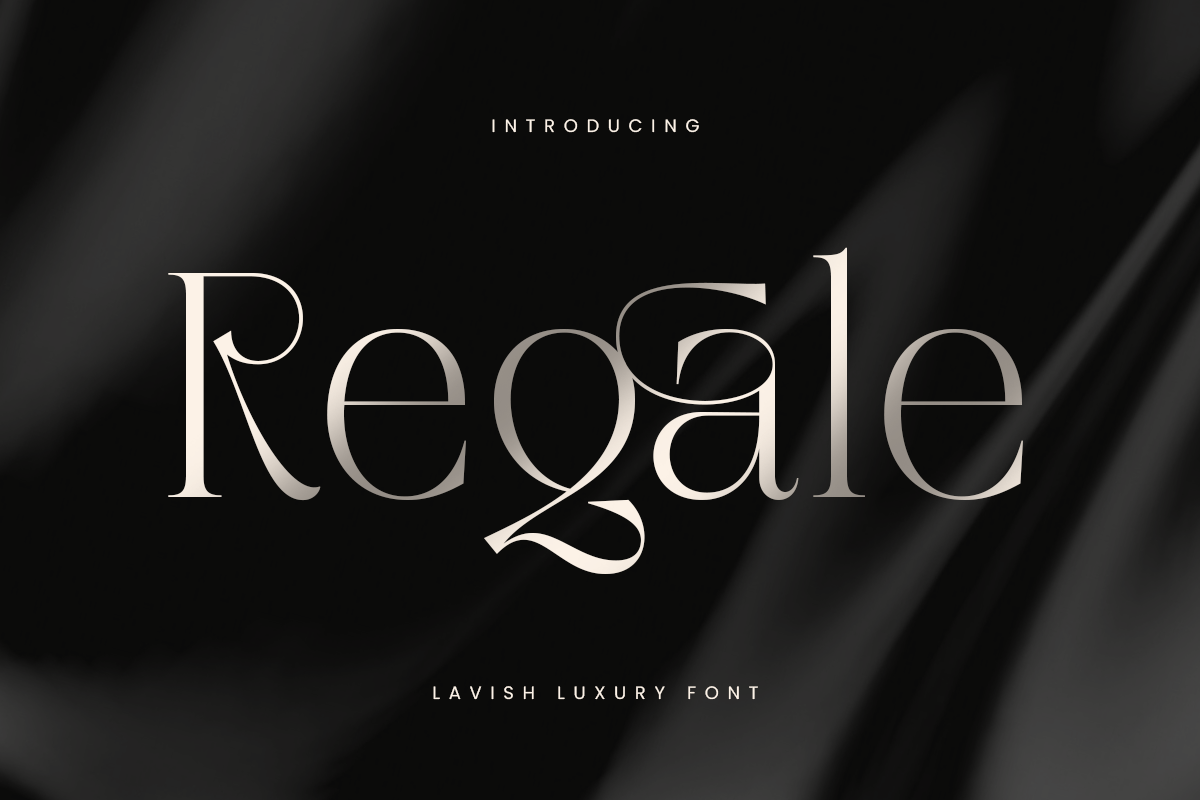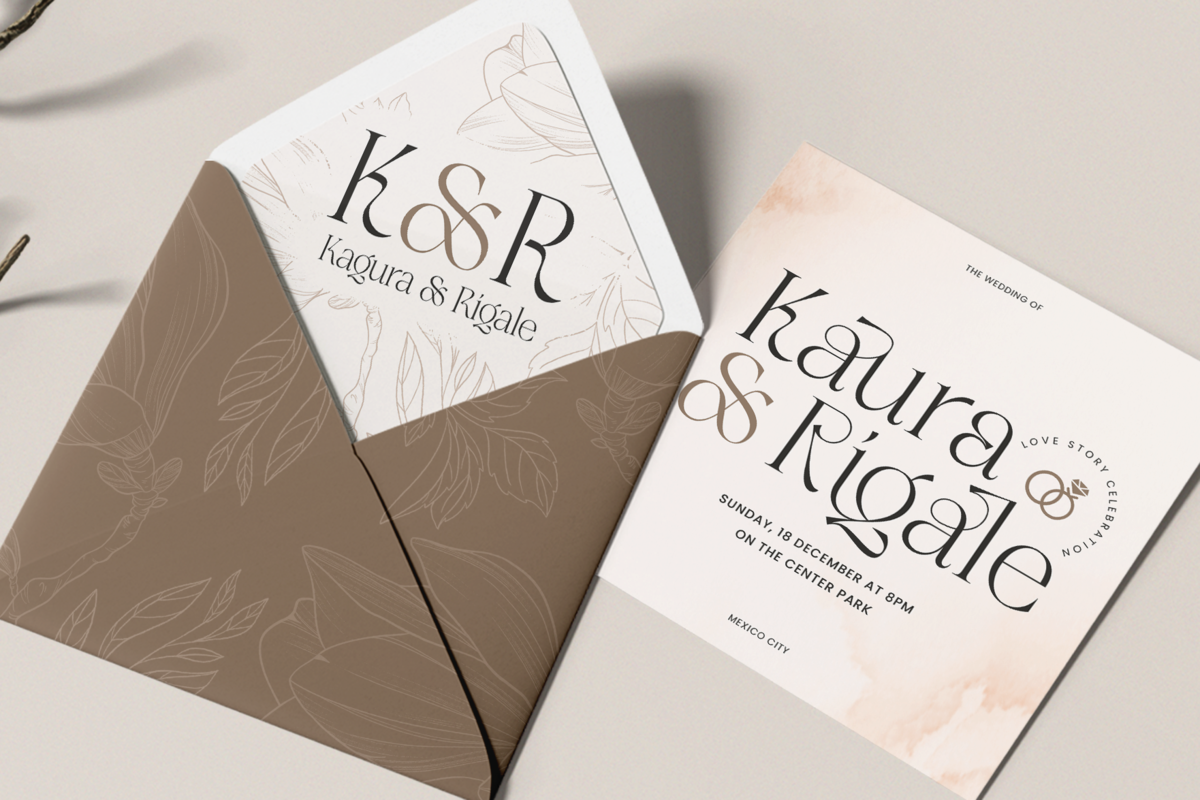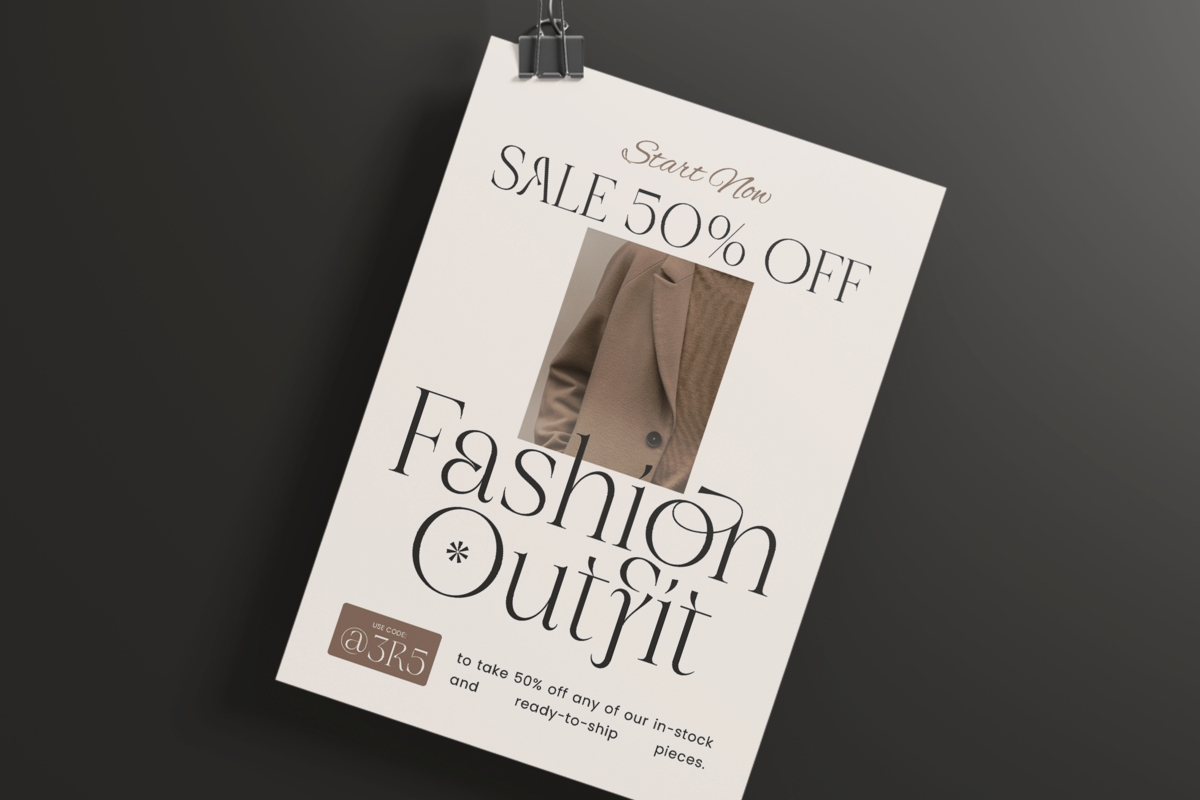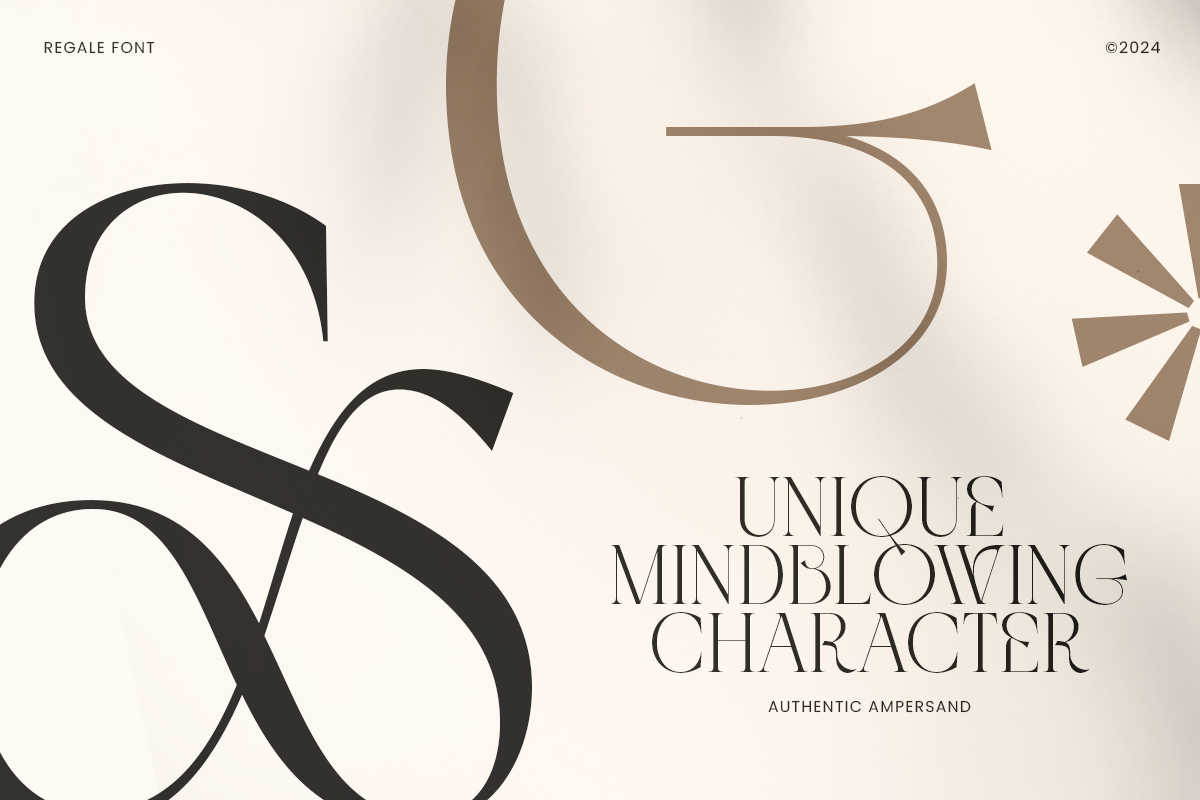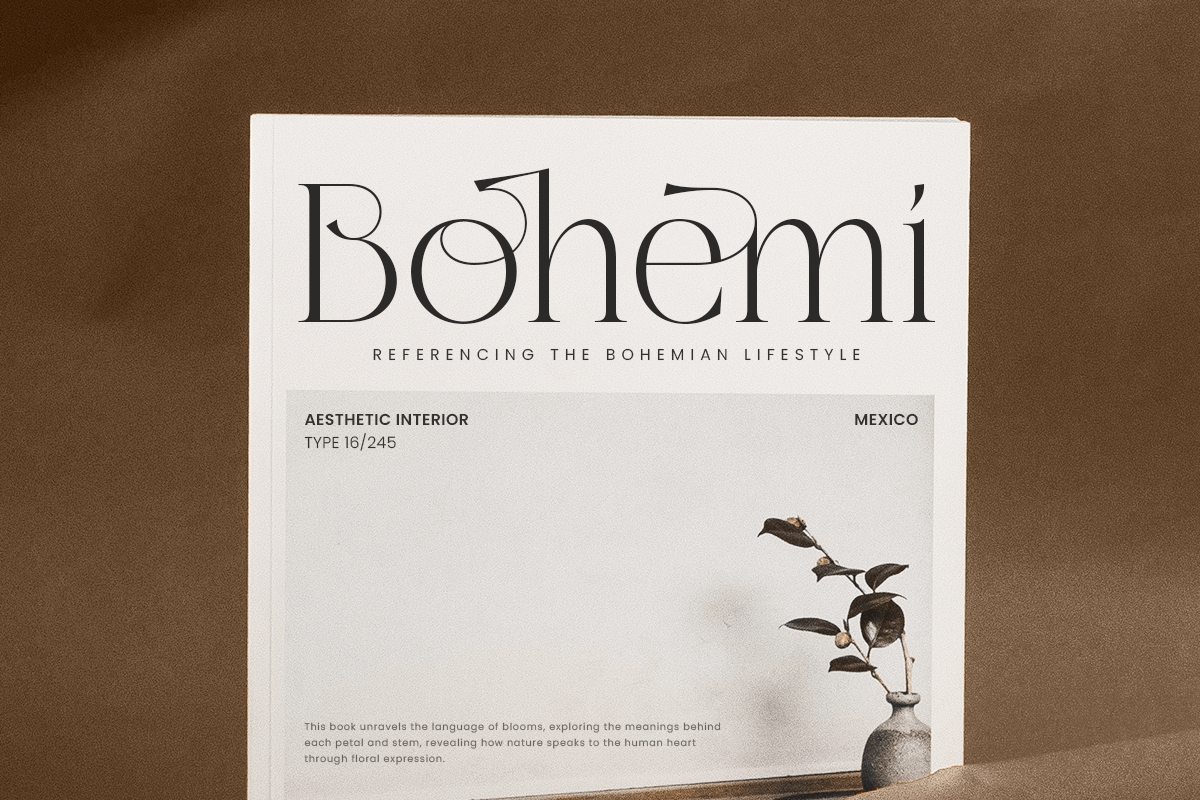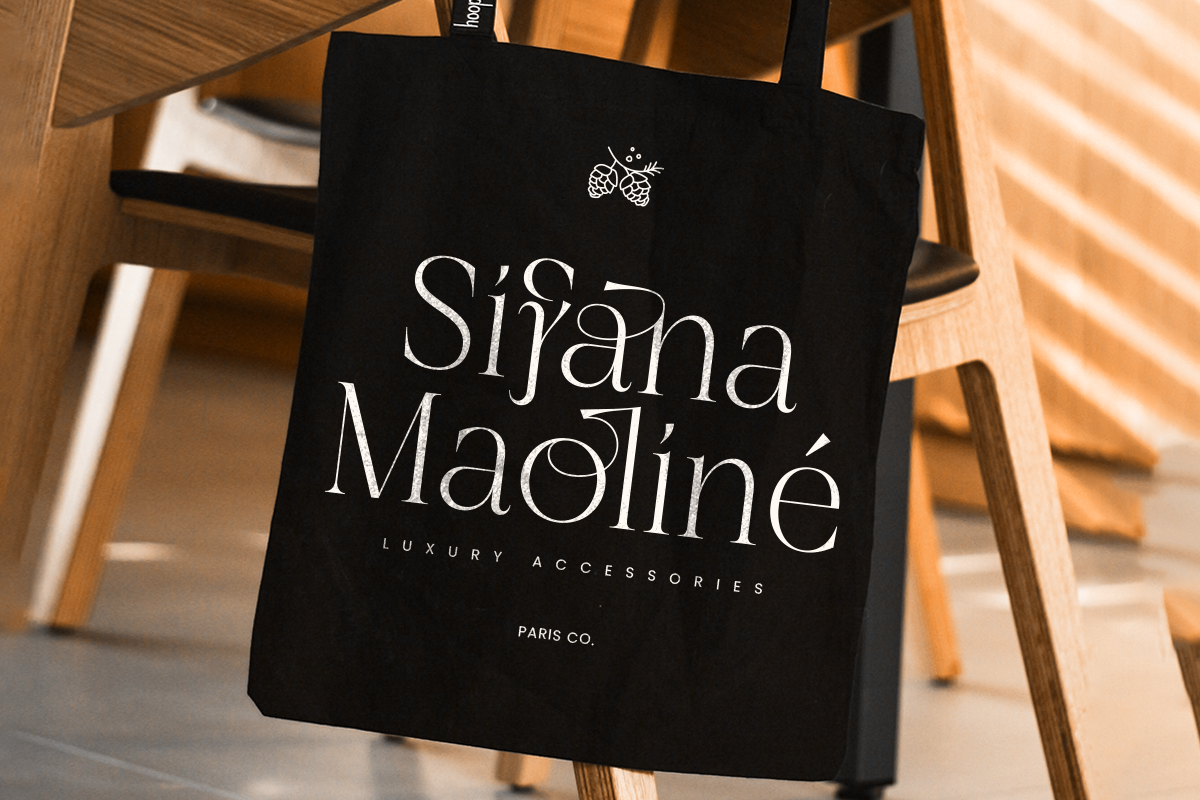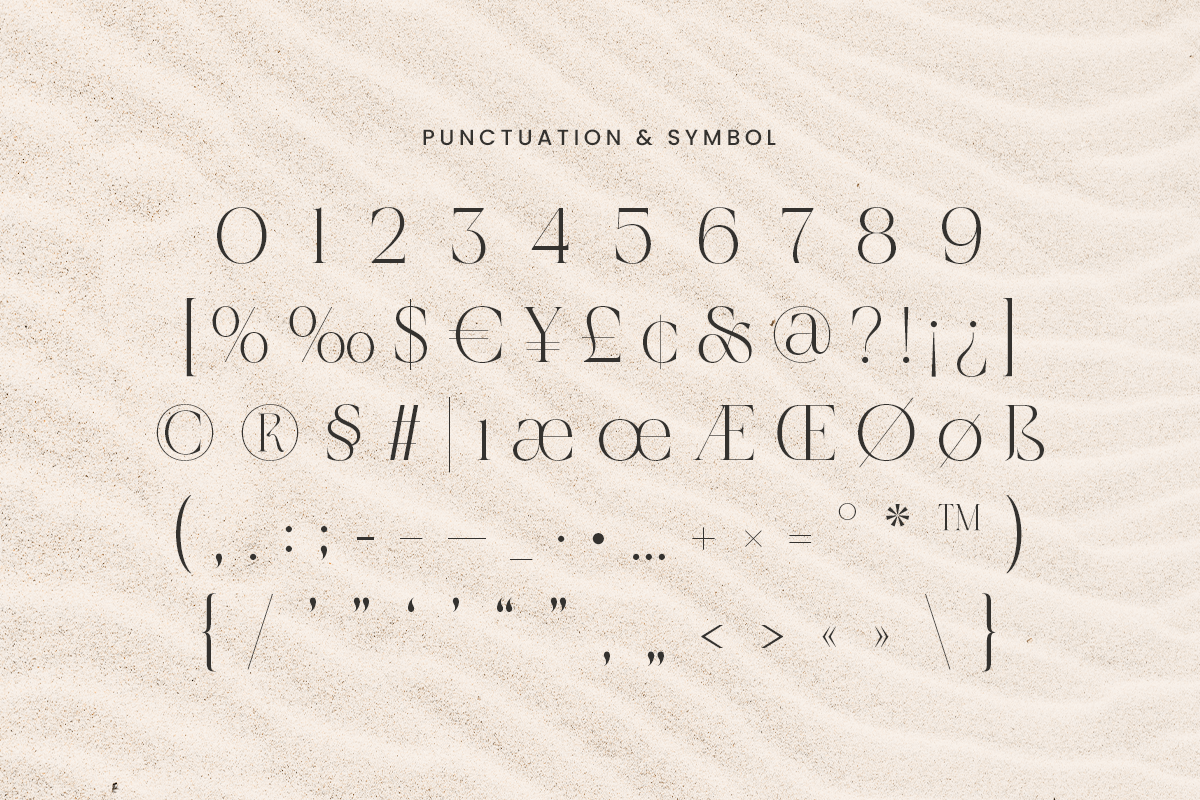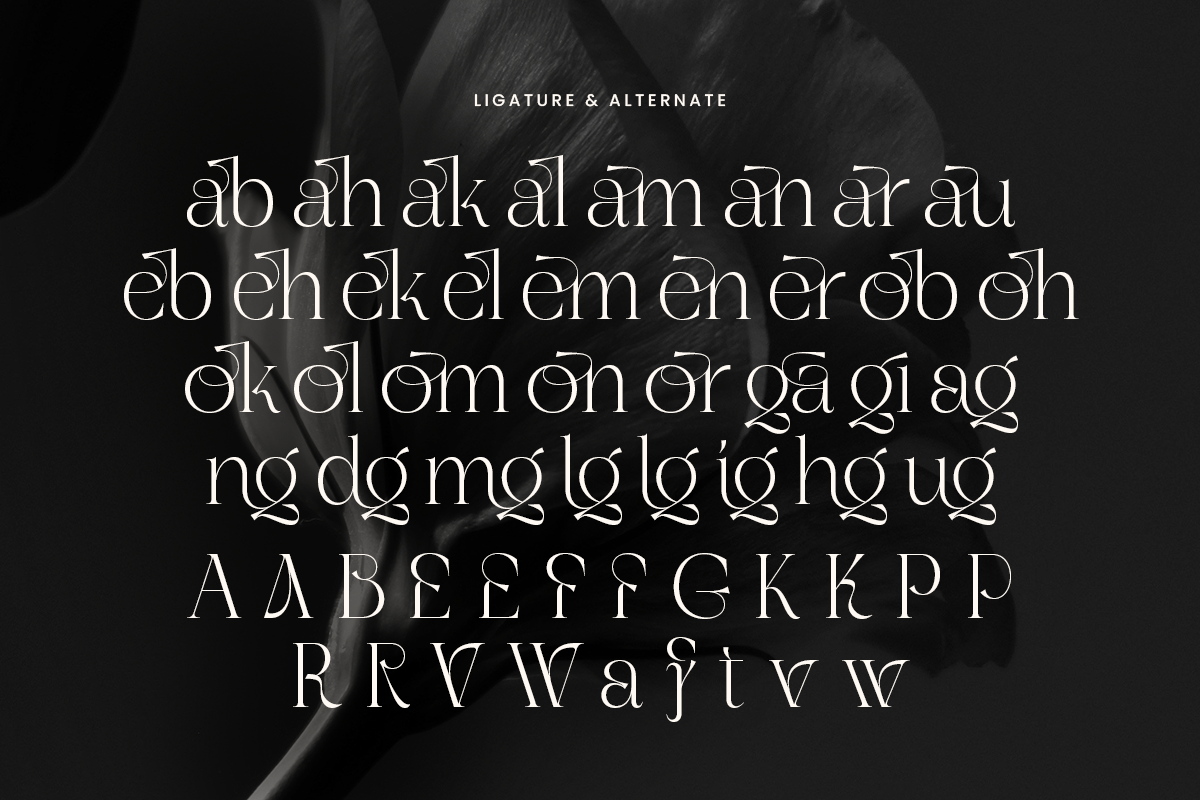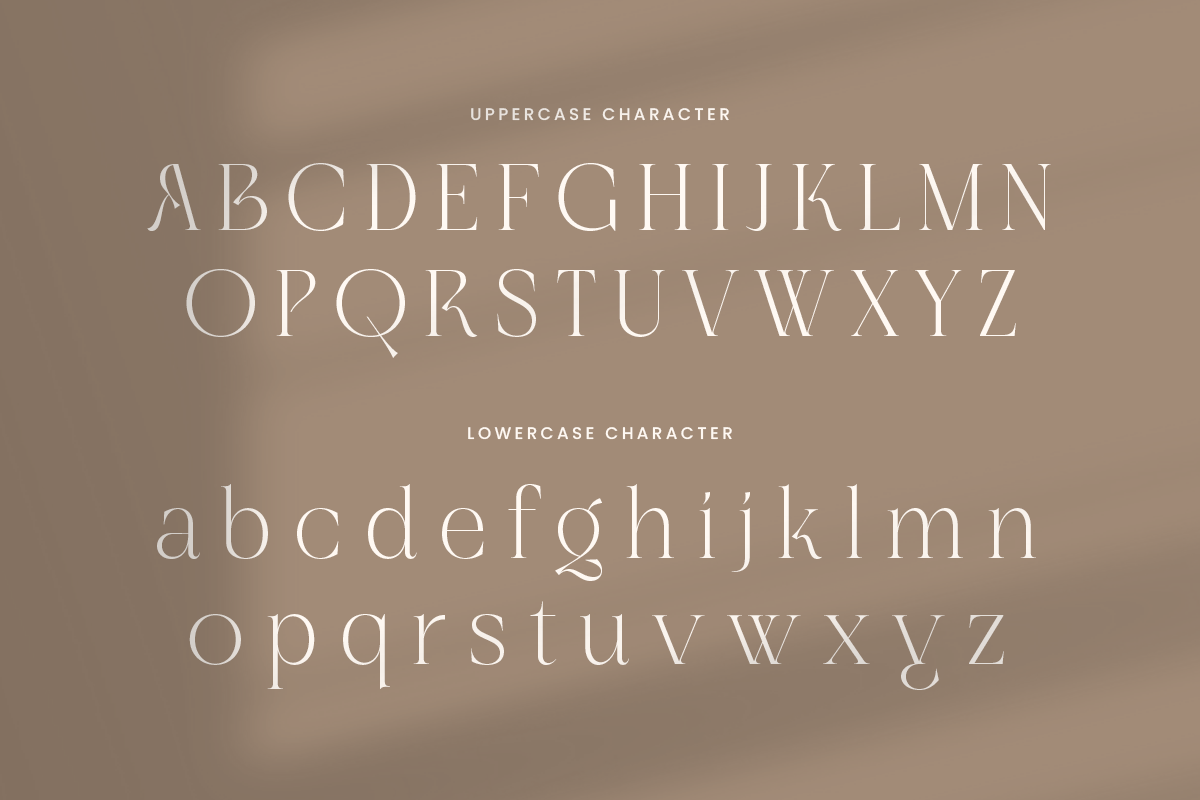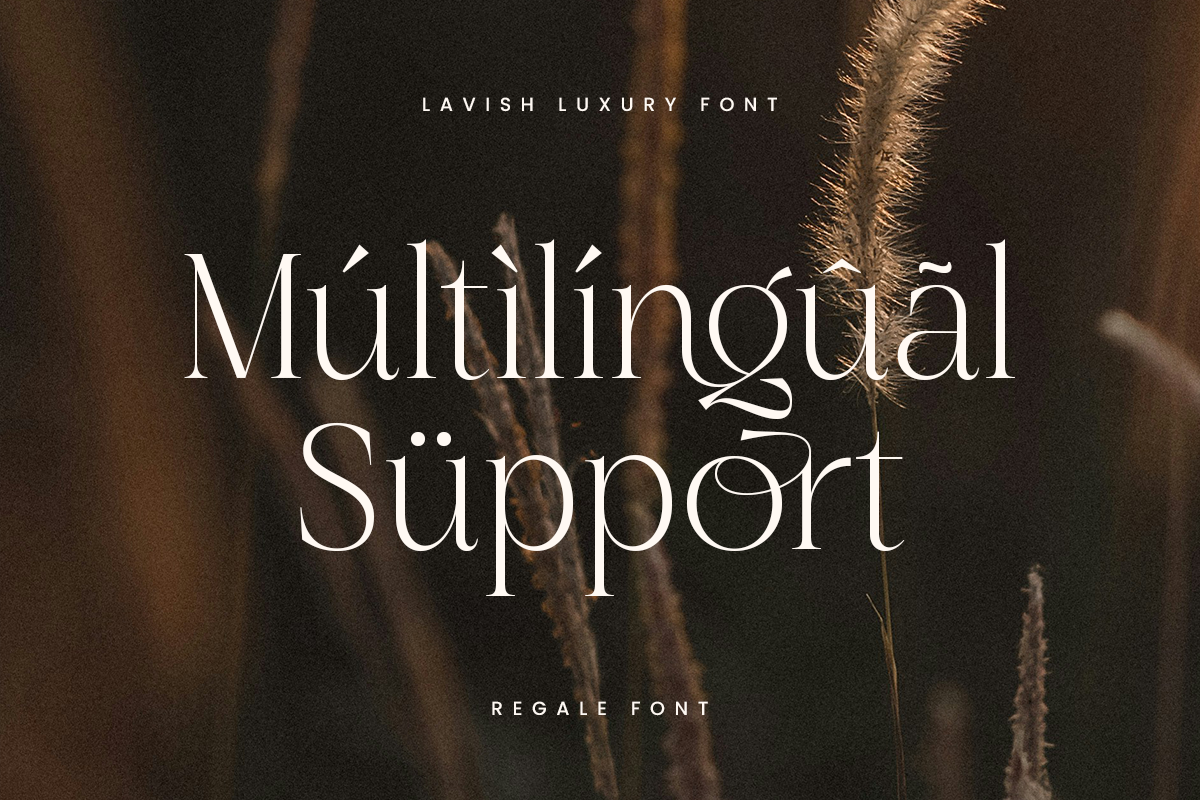
Regale - Lavish Luxury Font
Regale is a lavish luxury font crafted for designers who seek elegance and sophistication in their work. Perfect for high-end branding, logos, invitations, and editorial design, Regale embodies refinement and grandeur. Its graceful curves and luxurious detailing elevate any project, making it ideal for businesses that value a premium, upscale image.
Drawing inspiration from timeless calligraphy and modern design aesthetics, Regale merges classic elements with contemporary flair. This unique combination ensures that your work captures attention while exuding class. The font's balanced letterforms and delicate strokes make it versatile for a range of creative applications, from fashion magazines to exclusive event promotions.
Choose Regale to make your design stand out with unmatched luxury. It's not just a font; it's a statement piece that complements and enhances any project, bringing a touch of elegance and sophistication to your visual communication.
Regale Lavish Luxury Font Features:
- Elegant, Unique Character Designs
- Punctuation, Number, and Symbol
- Opentype Features
Multilingual Characters available for:
Afrikaans, Albanian, Asu, Basque, Bemba, Bena, Breton, Chiga, Cornish, Dutch, English, Estonian, Filipino, Finnish, Friulian, Galician, German, Gusii, Indonesian, Irish, Italian, Kabuverdianu, Kalenjin, Kinyarwanda, Luo, Luxembourgish, Luyia, Machame, Makhuwa-Meetto, Makonde, Malagasy, Manx, Morisyen, North Ndebele, Nyankole, Oromo, Portuguese, Quechua, Romansh, Rombo, Rundi, Rwa, Samburu, Sango, Sangu, Scottish Gaelic, Sena, Shambala, Shona, Soga, Somali, Spanish, Swahili, Swedish, Swiss.